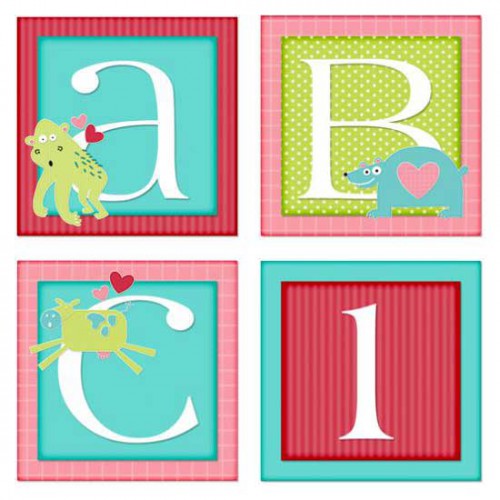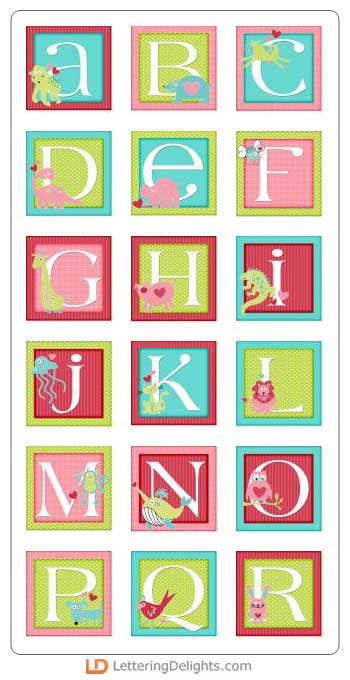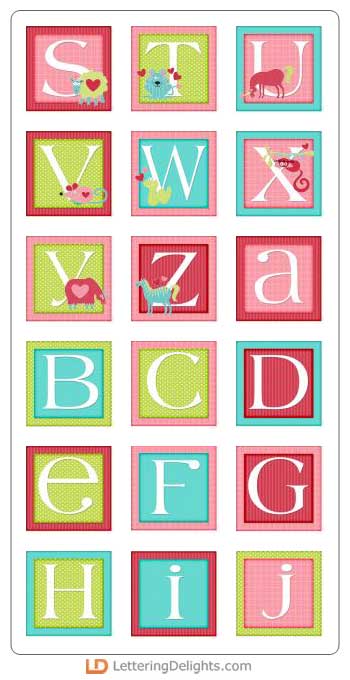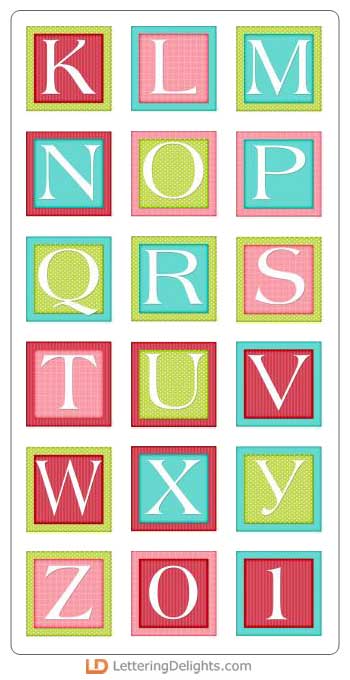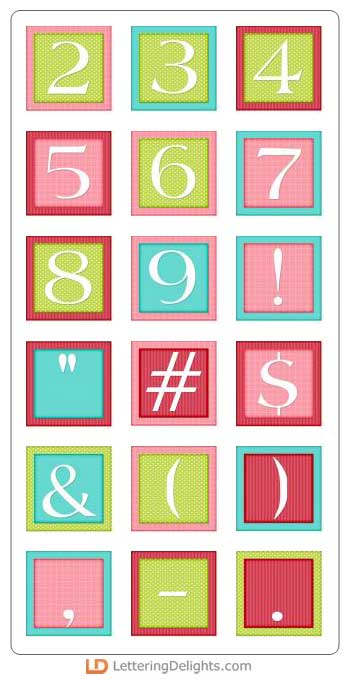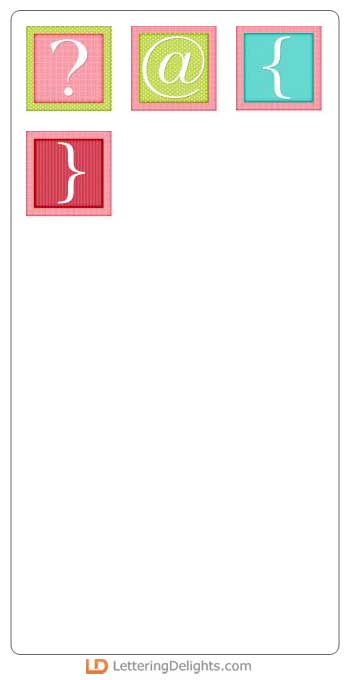
What can we say? The Purr-fect Love Alphabet is purr-fect for creatively saying "I love you". But notice that the colorful lower-case letters, along with all punctuation and numbers, could be used for many applications, making this a very versitile and absolutely adorable addition to your alphabet collection.